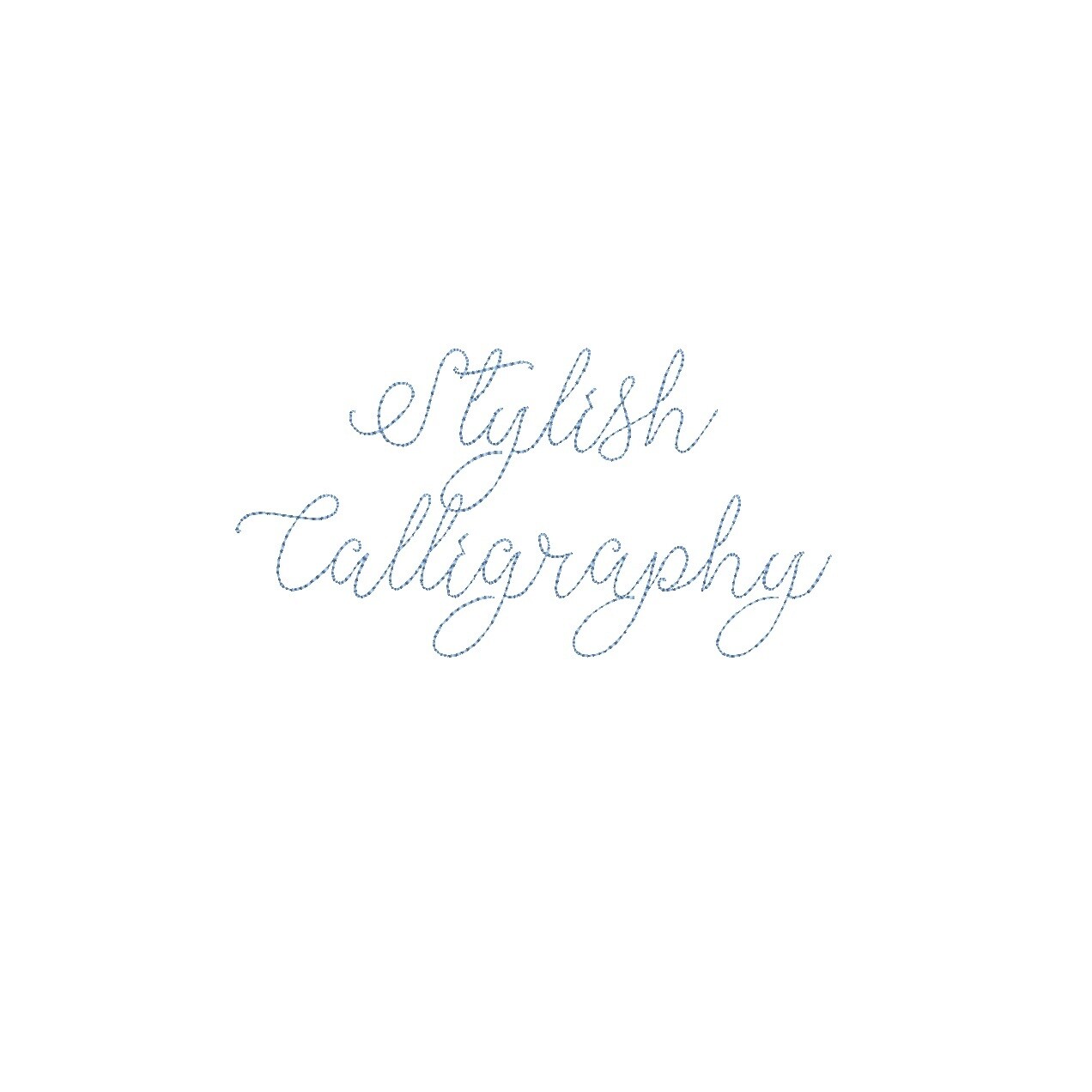
Introducing the Stylish Calligraphy Bean Stitch ESA font - your ultimate digitizing solution compatible with Wilcom Studio e4.5.6 and Hatch 3 versions and up. This font exudes sophistication and elegance, making it perfect for various embroidery projects. Its artistic calligraphy-style bean stitch adds a touch of luxury to apparel, accessories, and personalized gifts. With seamless curves and impeccable lines, the Stylish Calligraphy ESA font guarantees flawless embroidery results. Impress clients and showcase your creativity effortlessly with this user-friendly font, seamlessly integrating with your preferred software. Elevate your designs to a whole new level of style - get it now!